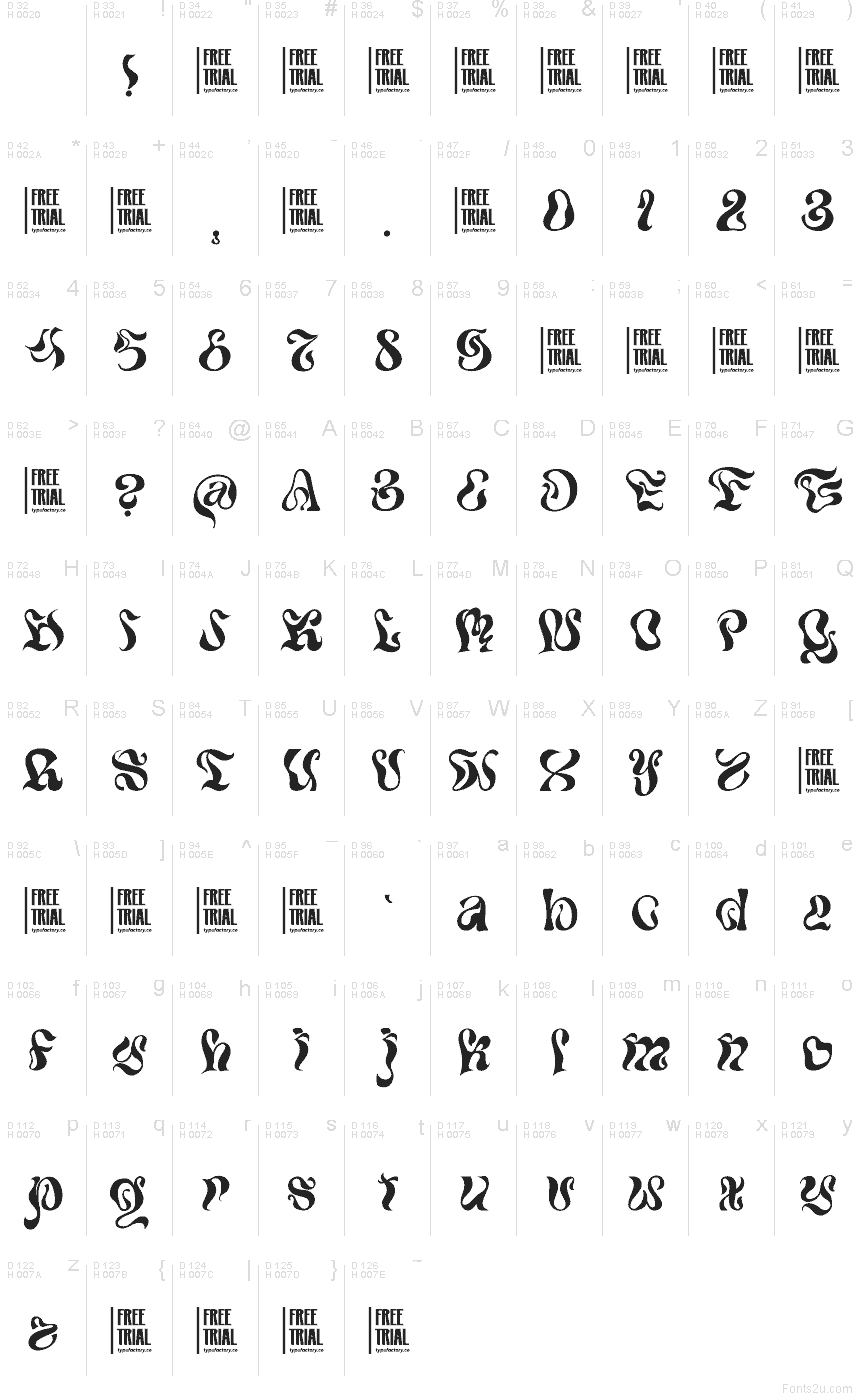
Meander Free Trial
Meander font by Typefactoryco is a free groovy display typeface that looks like ink poured onto the page and left to find its own path. Each letter sways and pools with a liquid, hand-drawn feel, yet the rhythm stays surprisingly readable. Thick, inky strokes swell and taper like waves, giving your words a trippy, slightly witchy energy that still feels relaxed and approachable in monochrome layouts.
Using Meander, your titles instantly feel like they’re moving—great for psychedelic posters, album covers, zines, streetwear graphics, social media promos, and bold packaging. This free font holds its own on noisy, textured backgrounds, so you can push color and imagery without losing clarity. Set it large for headlines and pair with a clean, neutral sans serif for body text to let Meander’s fluid forms do the talking.